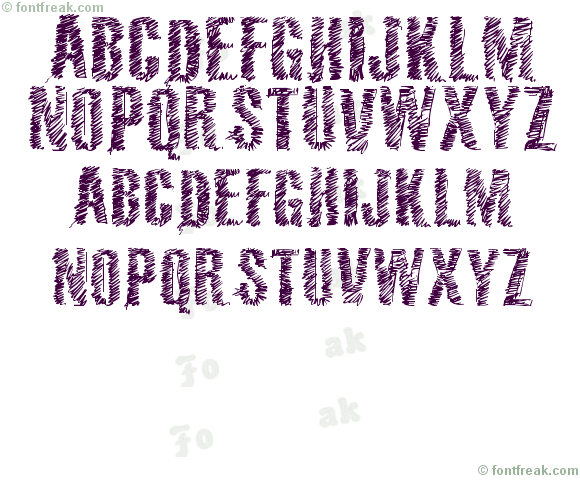
VTKS 36
VTKS 36 is a distinctive display font designed by Douglas Vitkauskas, categorized under decorative typefaces. This font features a unique, hand-drawn aesthetic that captures attention with its playful and dynamic strokes. The visual characteristics of VTKS 36 include a varied stroke weight, giving it a lively appearance, and an intriguing contrast that adds depth to its letters. Its spacing is deliberately loose, enhancing readability while maintaining a casual flair. The decorative elements of this font evoke a sense of creativity and spontaneity, making it suitable for various design projects.
This font excels in specific use cases, such as wedding invitations where a touch of whimsy is desired, or movie posters that aim to convey an artistic vibe. Additionally, VTKS 36 works wonderfully for restaurant menus, particularly for establishments with a modern or eclectic theme, and in promotional materials for creative workshops or events. Graphic designers, small business owners, and content creators will find this font particularly appealing due to its versatility and eye-catching design.
What sets VTKS 36 apart is its ability to blend professionalism with a relaxed, artistic feel, making it suitable for both formal and informal applications. The unique hand-drawn style gives any project a personal touch, ensuring that your designs stand out in a crowded marketplace. With the VTKS 36 font free download available, you can easily incorporate this captivating typeface into your next project, allowing your creativity to shine through while maintaining a professional edge. Whether you’re looking to add a playful touch to your branding or create an engaging visual experience, VTKS 36 is an excellent choice that promises to elevate your designs.